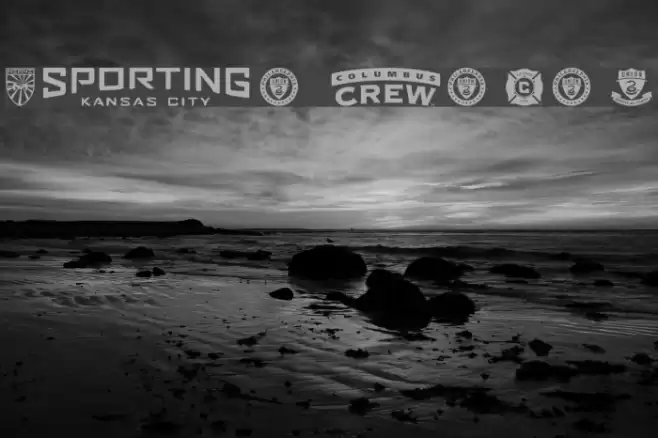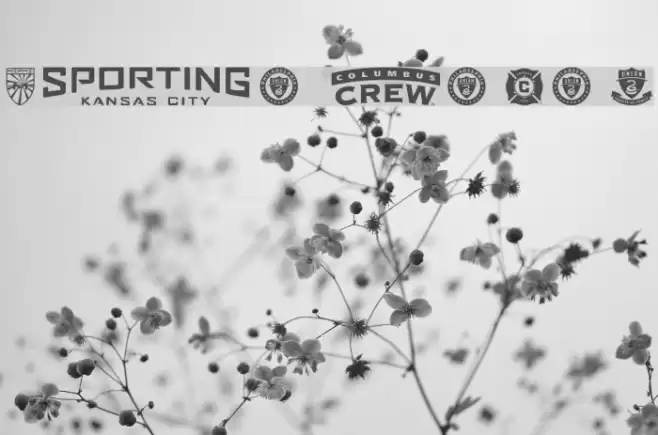
MLS ESAST Font
MLS ESAST Description
A geometric, all-caps sans-serif typeface with uniform stroke width, sharp corners, and wide letterforms. The spacing is even, and the characters are bold and modern, with a clean and professional appearance.
A bold, geometric sans-serif font with wide, modern letterforms from Dingbats fonts.
- Proposed Projects: Sports branding, event posters, team logos, merchandise, signage.
- Width: Expanded
- Overall Style: Modern, Sporty, Professional
- Use Case: Headlines, Logos, Branding, Posters